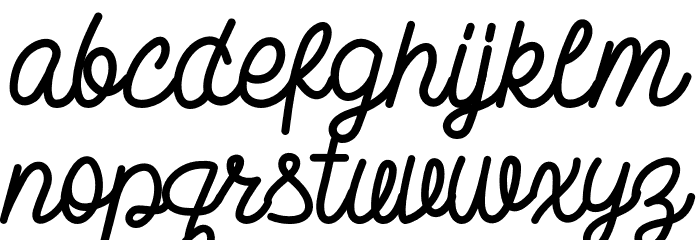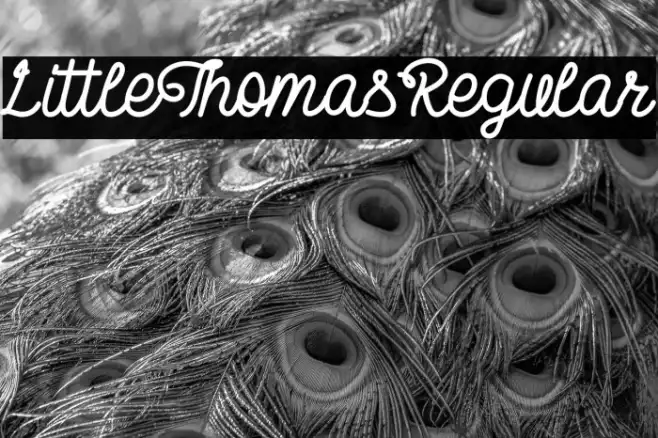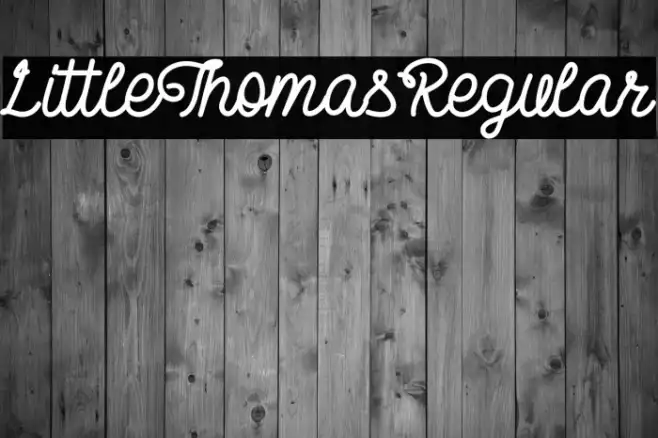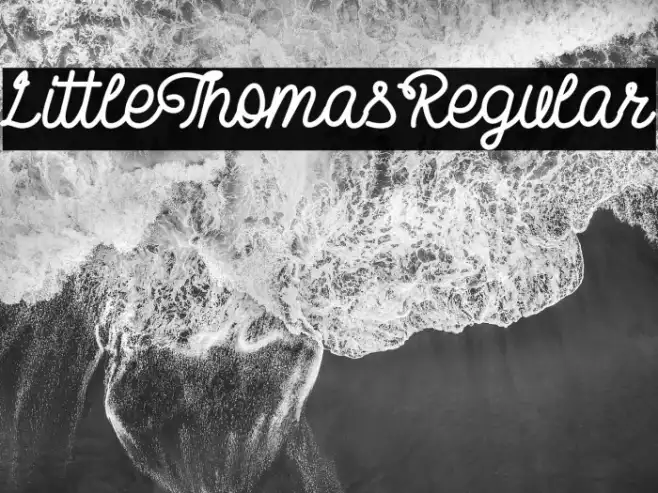
LittleThomasRegular Font
This font features a playful and whimsical script style with a handwritten appearance. The letters are connected in a flowing manner, giving it a casual and friendly look. The uppercase letters are slightly more ornate, with loops and curls that add a touch of elegance. The lowercase letters maintain a consistent style, with smooth curves and rounded edges. The numerals are clear and easy to read, matching the overall playful aesthetic. Special characters are included, maintaining the same whimsical style. This font is ideal for projects that require a personal touch, such as invitations, greeting cards, or playful branding.
A playful, whimsical script font with a handwritten style.
- Proposed Projects: Ideal for invitations, greeting cards, playful branding, and personal projects.
- Category: Script
- Overall Style: Whimsical
- Use Case: Headlines, Logos, Invitations